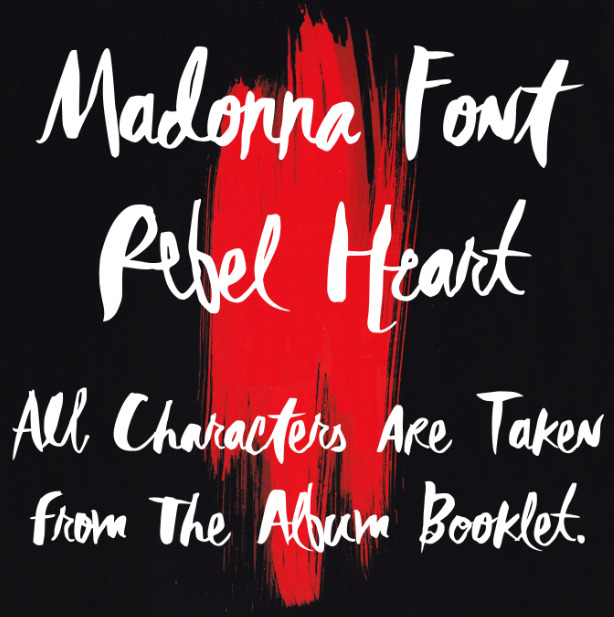
Preview and download Rebel Heart Font. Created by xpeehdroox in Script Brush styles with Free for personal use license.
Font created by me inspired by Rebel Heart album by Madonna. All characters are taken from the album booklet and others I had to create / adapt. Free for personal use only. Purchase the commercial version here: https://gum.co/aMZW OR http://www.revolge.com/product/rebel-heart-font/ |